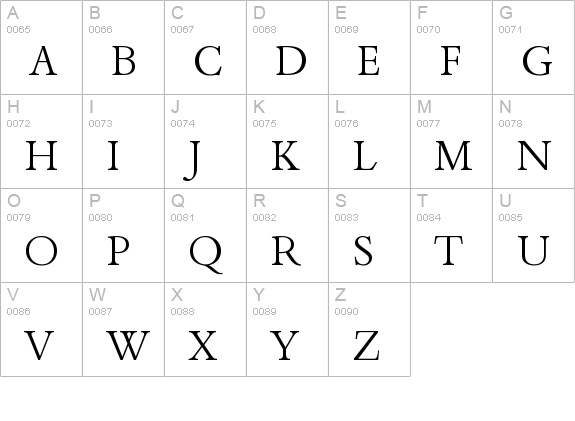
BambergSerial-Light-Regular is a refined, elegant variant in the BambergSerial typeface family \xE2\x80\x94 well suited to elegant body text, refined sub-headings, and luxury branding.
BambergSerial-Light-Regular font is a modern and elegant typeface that exudes sophistication and style. Its clean lines and sleek design make it perfect for a wide range of projects, from branding to editorial design. This versatile font features a light weight that adds a touch of delicacy to any text. What's even better is that BambergSerial-Light-Regular font is available for free download at FontsMarket.com. You can easily add this beautiful typeface to your collection without any cost. Don't miss out on the opportunity to enhance your designs with this stunning font that combines classic elegance with a contemporary twist.